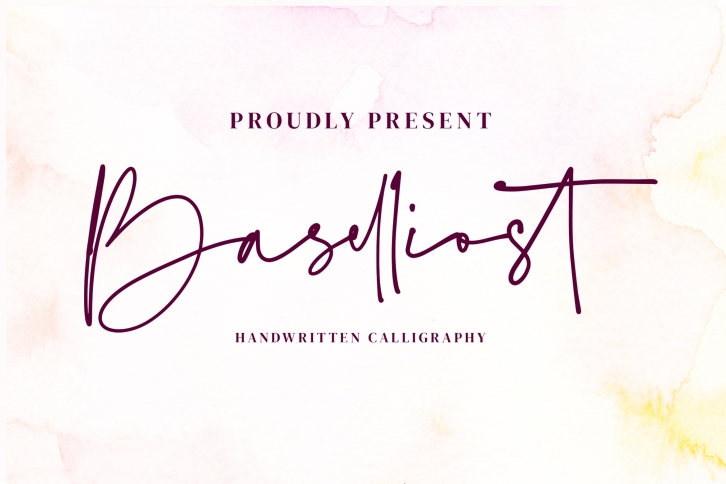
Baselliost handwritten Script font Download
Baselliost handwritten Script is a great font that was designed by Formatika Studio. Imagine the amount of combinations you can create using this font! The archive is 4.90 MB and it was released on November 13, 2019. Baselliost handwritten Script looks beautiful on wedding invitations, greeting cards, logos, posters, labels, t-shirt designs, logos, business cards and is perfect for use in ink or watercolor works, fashion, magazines, packaging and food menus, children's books and more!